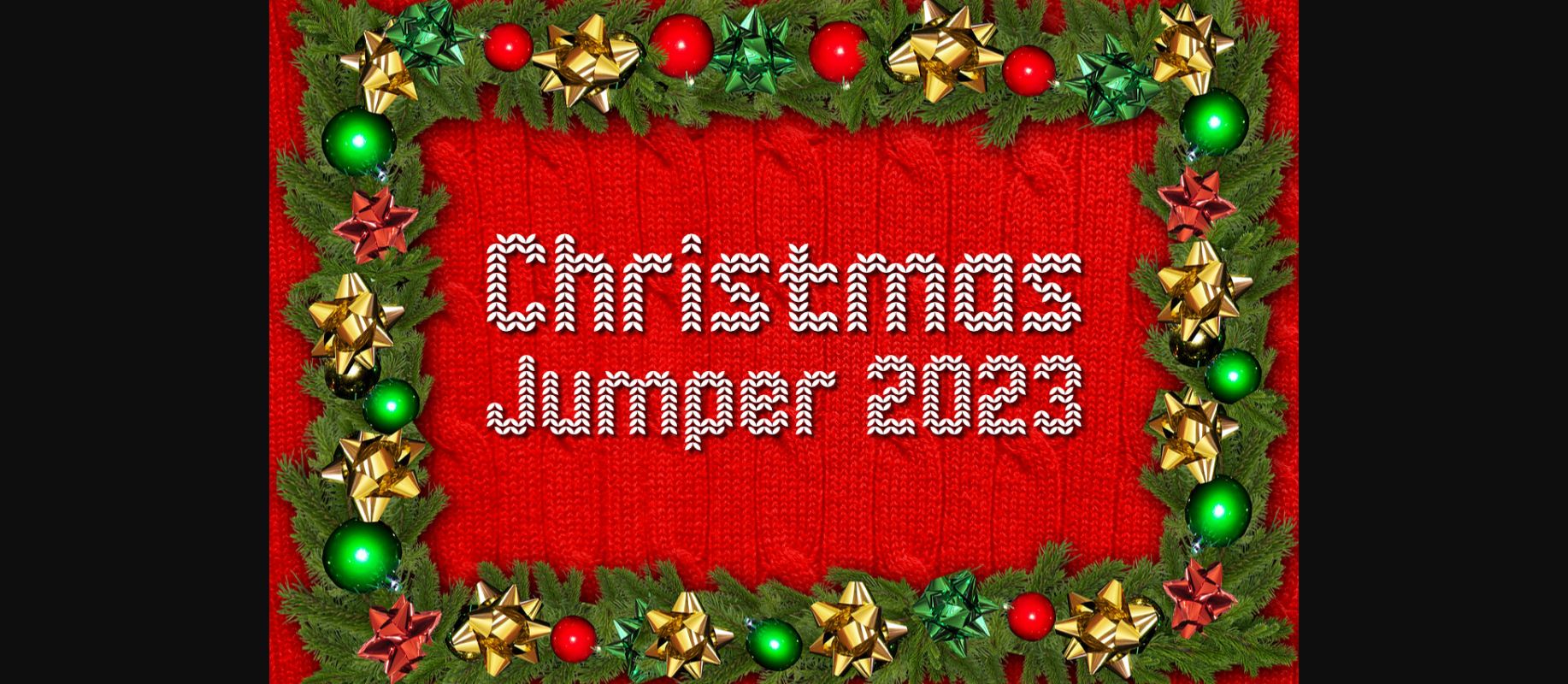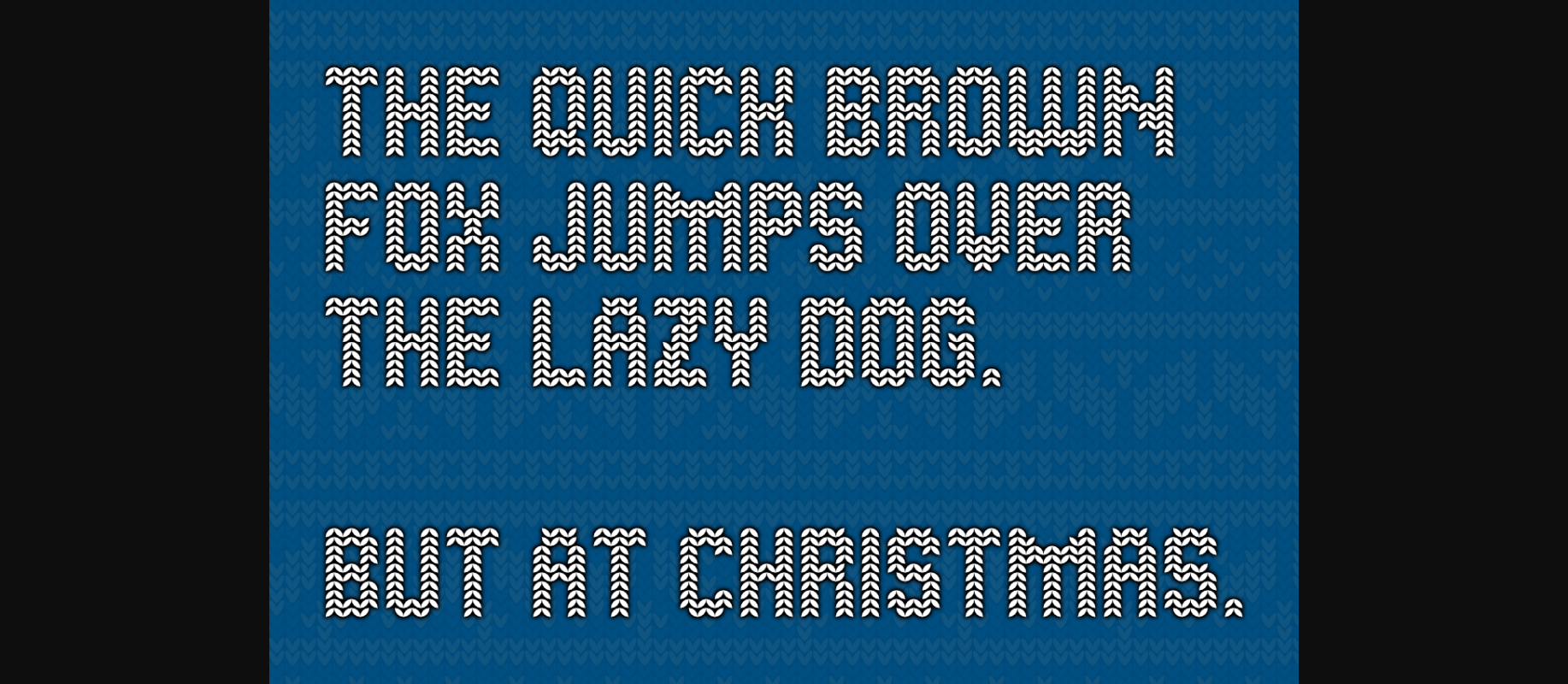
Christmas Jumper 2023 Font
About Christmas Jumper 2023 Font
Get into the festive spirit with our unique hand-knitted lettering font! Perfect for creating your own ugly sweaters or t-shirts, this font will add a touch of warmth and coziness to your Christmas merchandise. With its playful and quirky design, it’s sure to make your products stand out from the crowd. So why wait? Join the best Christmas trend this year and give your merchandise a cozy, handmade feel with our hand-knitted lettering font!